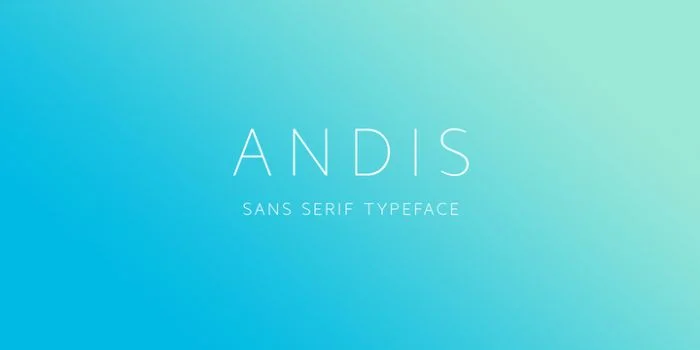
Andis Font is perfect for a wide range of design projects including modern branding, elegant logos, wedding invitations, luxury packaging, fashion magazines, social media graphics, and sophisticated web design. Its versatile character makes it an excellent choice for both digital and print applications.
What makes Andis Font exciting is its unique blend of contemporary style and timeless elegance. The carefully crafted letterforms deliver exceptional readability while maintaining a distinctive personality that sets your designs apart. Its smooth curves and balanced proportions create visual harmony that captures attention without overwhelming your message.
Andis Font comes in multiple font families including Regular, Bold, Light, Italic, and various weight variations. These diverse options provide designers with complete flexibility to create stunning typographic hierarchies and maintain consistency across different design elements.
Whether you're working on editorial layouts, creating eye-catching posters, or developing a complete brand identity, Andis Font Free Download offers the professional quality and aesthetic appeal needed to elevate your creative projects. The font's clean structure and modern approach make it an indispensable tool for designers who demand excellence in typography.